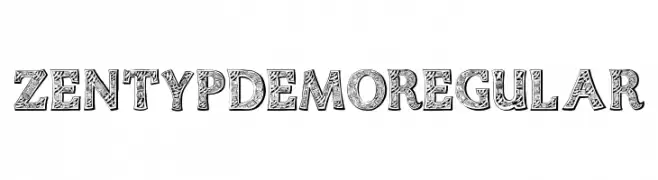
An ornate and decorative font with intricate swirls and embellishments.
Pattern-based decorative font with geometric and ornamental motifs.
A decorative font with intricate patterns and a vintage feel.
A textured, hand-drawn font with a playful and artistic style.
A decorative font with intricate, textured patterns in uppercase letters.